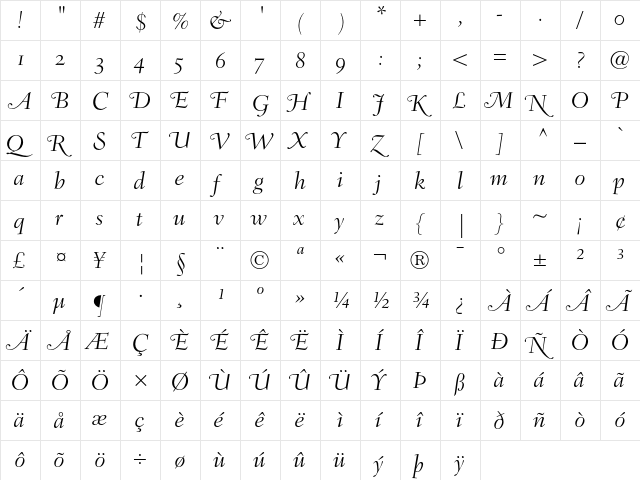
Fairfield LH 46 Swash Light Italic Old Style Figures Font Preview
Design Context for Fairfield LH Typeface
Fairfield LH flows with the natural rhythm of handwritten lettering, making it ideal for designs that call for warmth and personal expression. The delicate stroke weight brings airiness and refinement to layouts.
Font Pairing: Combine Fairfield LH with a simple geometric sans for maximum contrast — the tension between flowing curves and clean structure is a classic typographic pairing.
Pro Tip: Pair Fairfield LH with a clean sans-serif for supporting text. The contrast between fluid script and geometric structure creates an elegant typographic hierarchy.